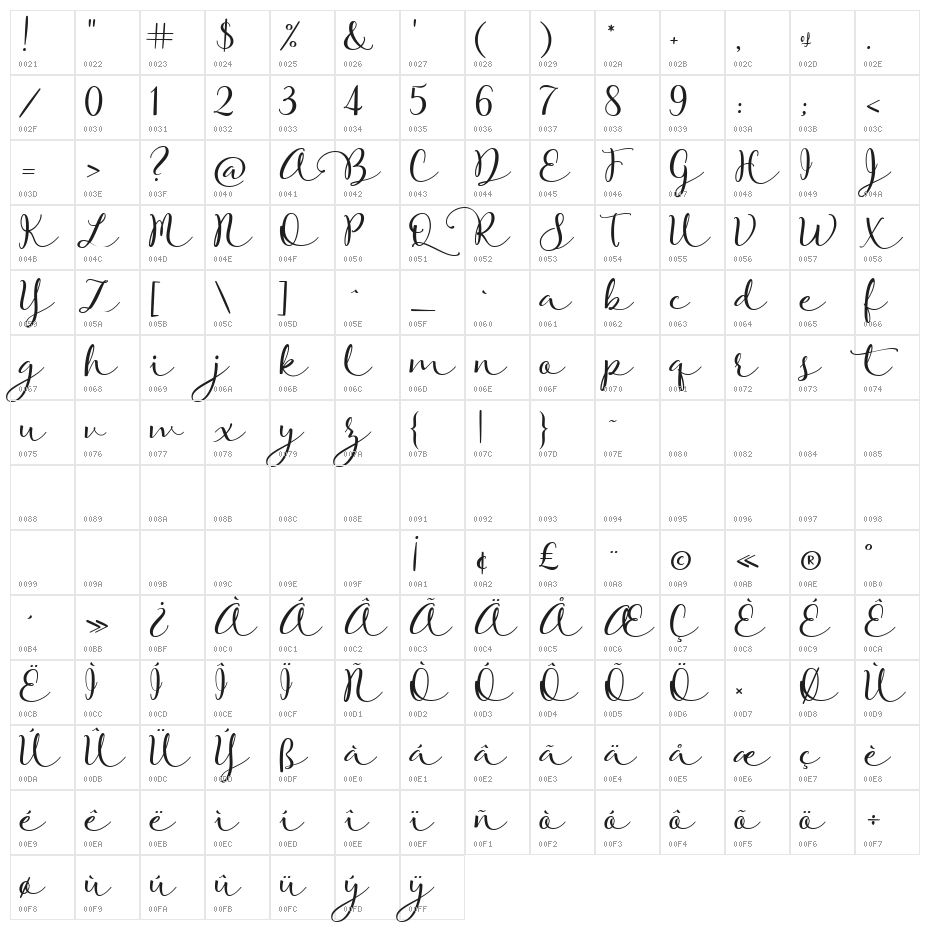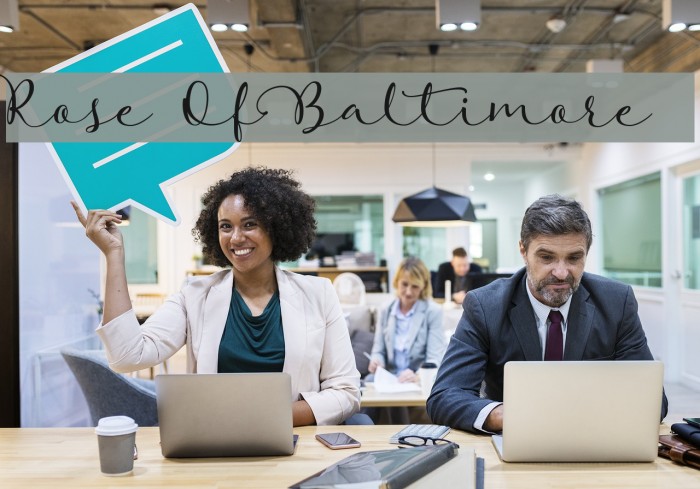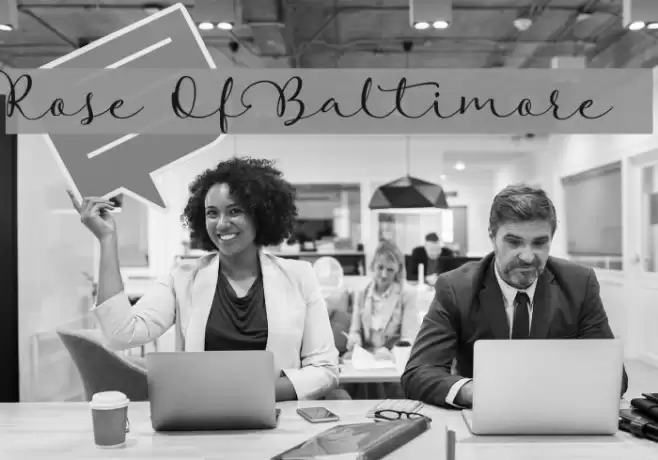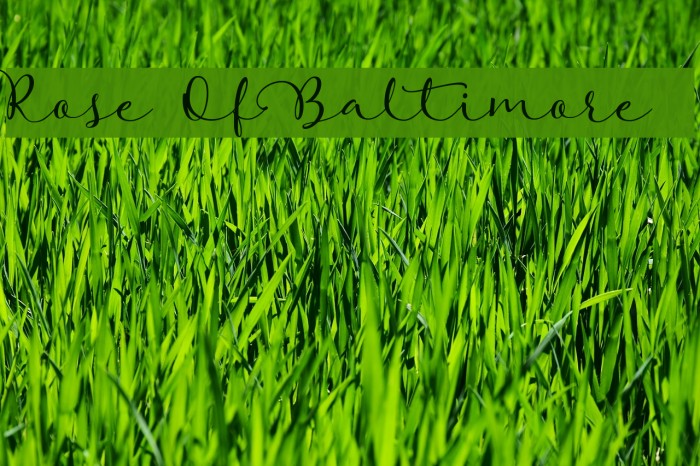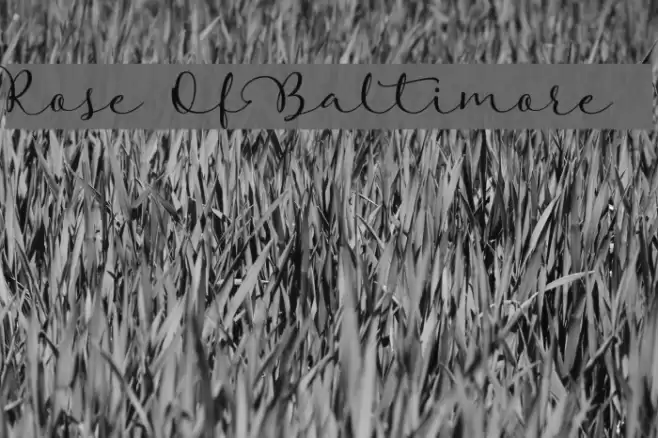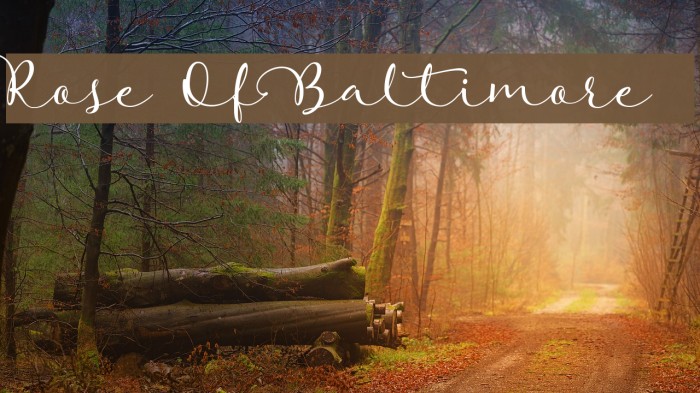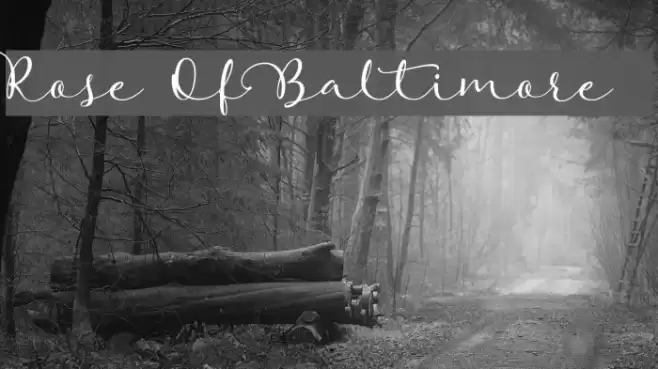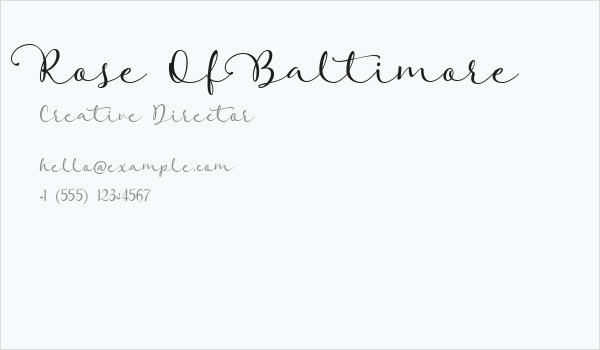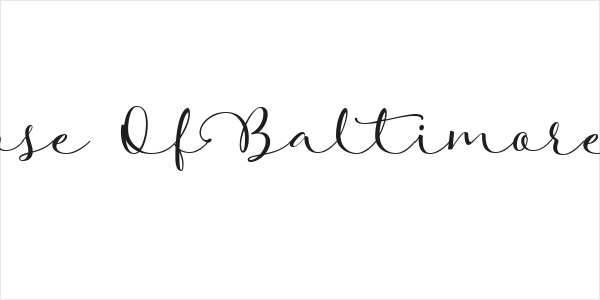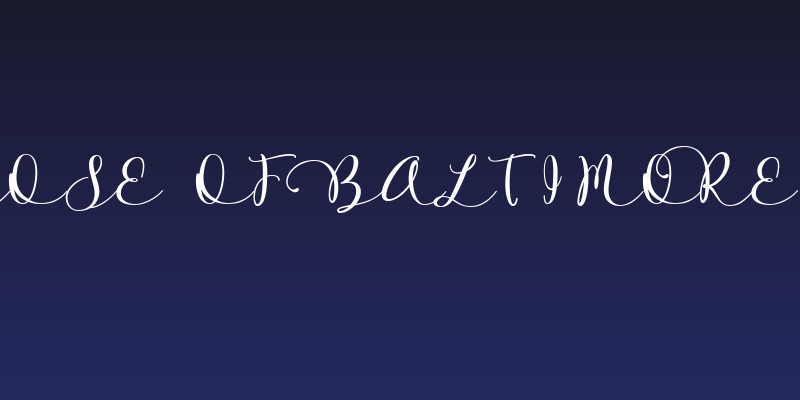
Rose Of Baltimore Font
Rose Of Baltimore Description
This font exudes elegance and sophistication with its flowing, cursive style. The characters are intricately designed, featuring smooth, continuous strokes that give a handwritten feel. The uppercase letters are particularly ornate, with loops and swirls that add a touch of flair. The lowercase letters maintain a consistent style, complementing the uppercase with their graceful curves. The numerals are clear and stylish, matching the overall aesthetic. Special characters are thoughtfully crafted, ensuring they blend seamlessly with the rest of the font. This font is perfect for projects that require a personal, elegant touch.